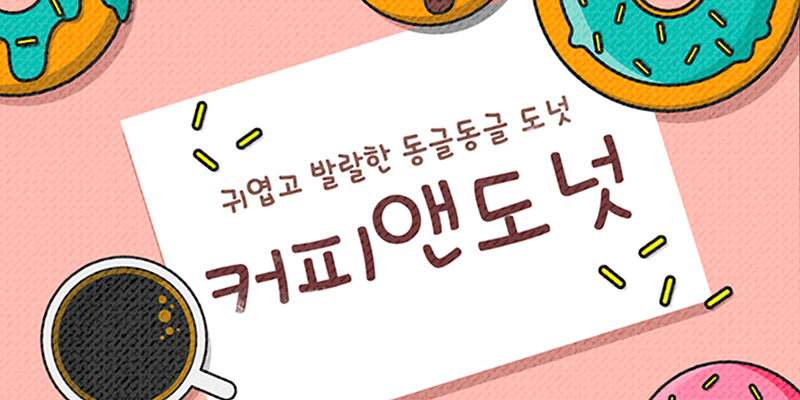
Sandoll Coffee&Donut is an adorable font with a letter ㅇ resembling a donut.
The enlarged first consonants give a cute and bright feeling, and the rhythmic characters and alignment accentuate the adorable and sentimental feature of this unique font.